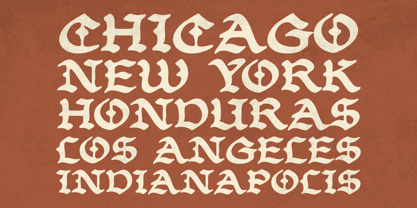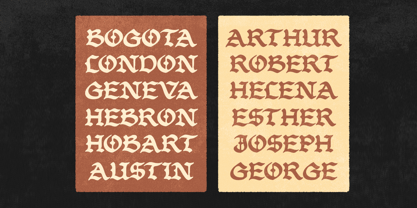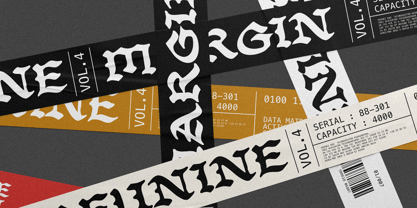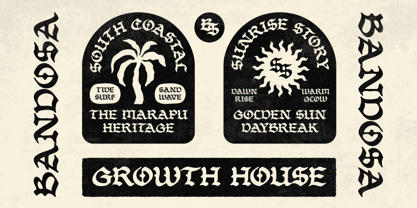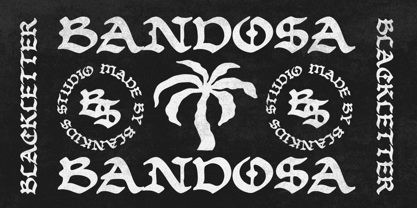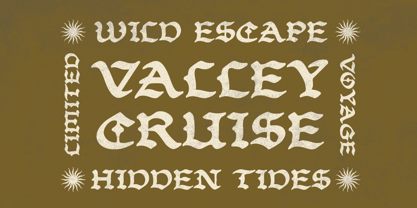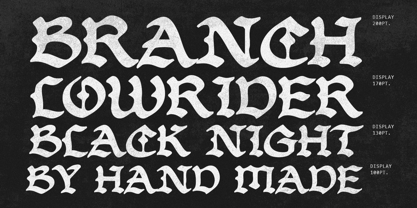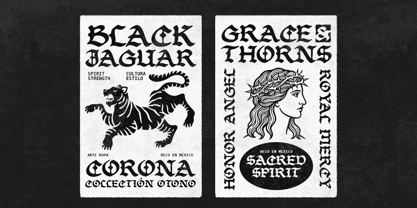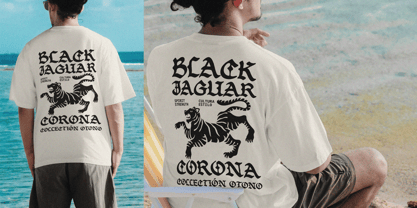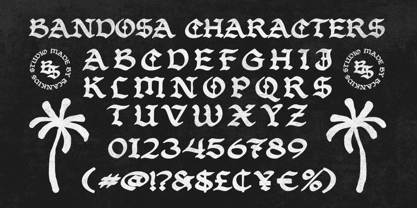
Bandosa
Bandosa is a modern blackletter font with a fresh, tropical twist. Inspired by heritage craftsmanship and coastal subculture, it combines bold vintage letters with a relaxed, handcrafted vibe.
Best For:
Apparel & Merch: Streetwear, surfwear, hoodies, and caps.
Branding & Packaging: Craft beer, coffee, chocolates, and barber shop logos.
Posters & Music: Album covers, event flyers, and display headlines.
Tattoo Flash: Traditional tattoo designs and subculture artwork.